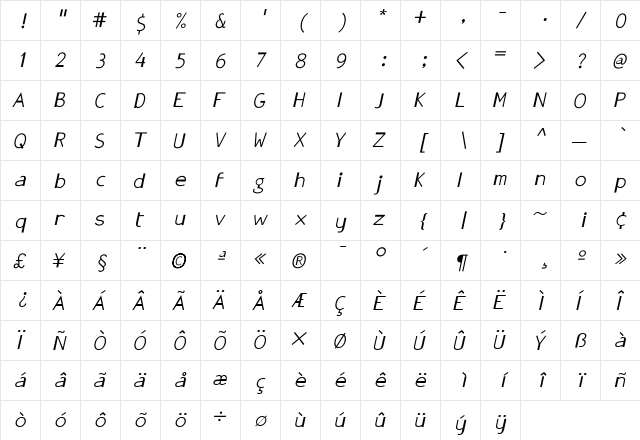
GonzaPlus Medium Italic Font Preview
GonzaPlus Medium Italic
Design Context for GonzaPlus Typeface
GonzaPlus is a composed and adaptable typeface that performs quietly and consistently across a wide range of design contexts. The dynamic lean of this cut emphasises speed and emphasis in any layout.
Pro Tip: Try GonzaPlus for annotation and caption copy alongside an upright companion — the contrast in angle creates a dynamic but ordered typographic system.